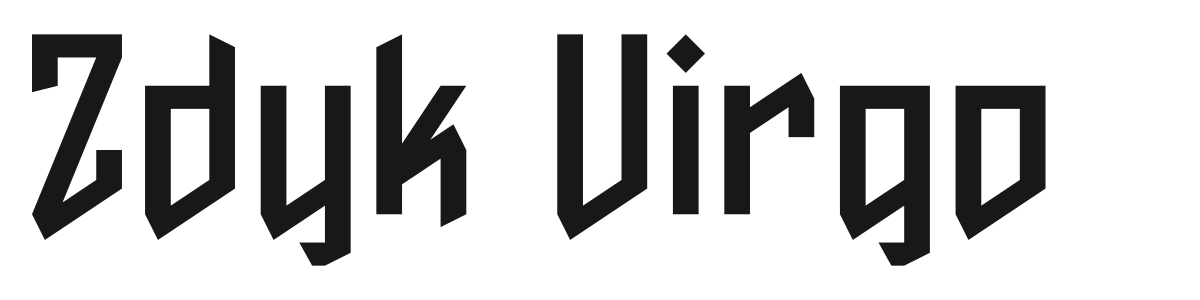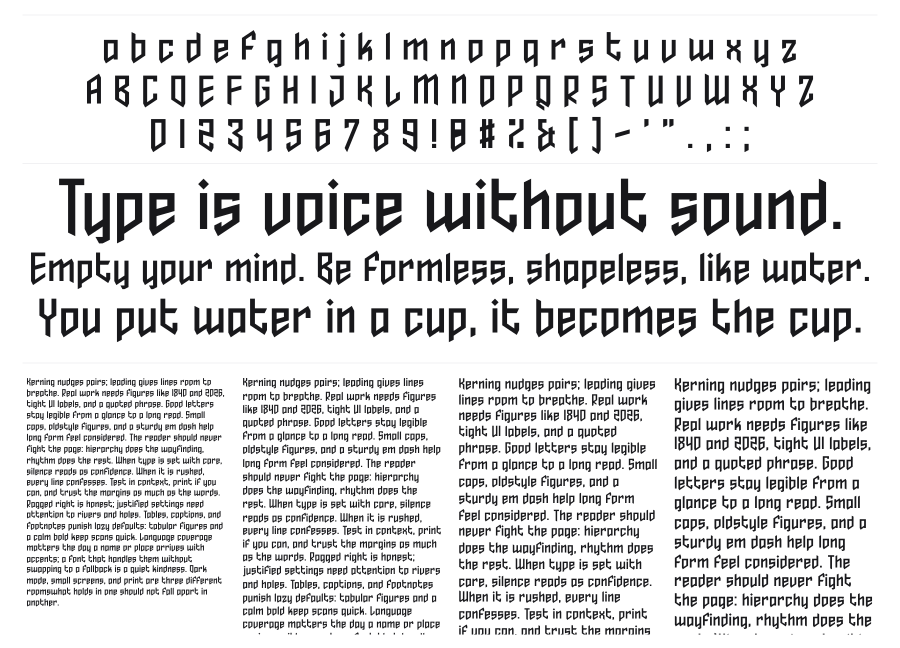
Zdyk Virgo
Zdyk Virgo is a bold gothic display font that takes blackletter structure and strips it down to its sharpest, most aggressive angles. The strokes are heavy and near-monoweight, with blade-like terminals that give each character a cutting, modern edge. It lives comfortably in metal music branding, gaming titles, streetwear, and anywhere a design needs raw authority.